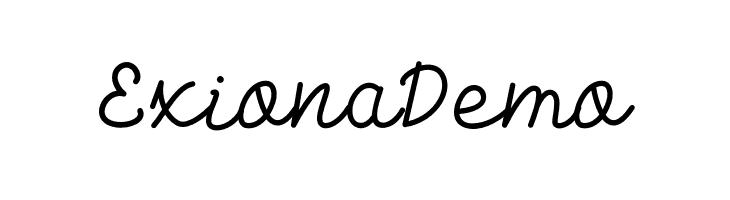
A playful, hand-drawn font with bold, rounded characters and whimsical charm.
A charming and elegant handwritten font with fluid, cursive strokes.
A charming, handwritten style with smooth, slanted strokes.
A bold, cursive font with a playful, vintage charm.
A playful, handwritten font with a whimsical and charming style.
A playful cursive font with fluid, connected characters and a nostalgic charm.
A charming script font with elegant, flowing lines and a handwritten appearance.
A playful handwritten font with irregular strokes and charming imperfections.
A charming and fluid script font with elegant cursive letters.
A charming and elegant script font with playful, whimsical curves.